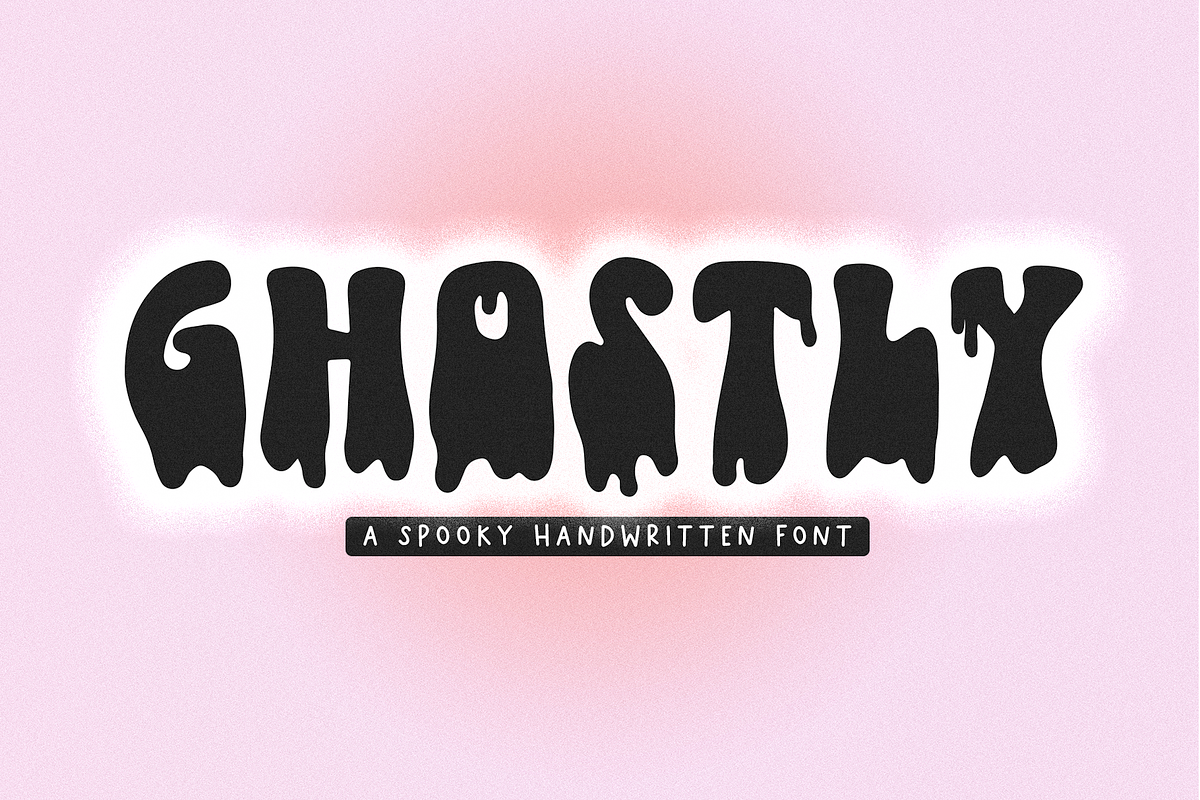
Ghostly | Dripping Halloween Font Free Download
Ghostly | Dripping Halloween Font Free Download is a spooky and fun typeface perfect for all your Halloween-themed projects. With its dripping letterforms and eerie, ghostly vibe, this font is ideal for creating chilling posters, haunted house signage, party invitations, and spine-tingling social media graphics.
Designed to add a touch of fright and fun to your typography, Ghostly brings a playful yet spooky look that fits perfectly with seasonal designs. Whether you're crafting a haunted logo, a creepy flyer, or an ominous Halloween invitation, this font helps your design stand out with a thrilling atmosphere.